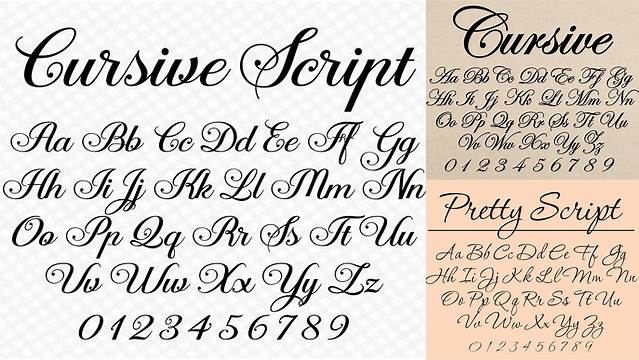
Handwriting Cursive Fonts: A Stylish Guide
Hey there, design enthusiasts! Ever found yourself captivated by the elegance of handwritten fonts, the way they dance across the page with a unique flair? Well, you're in the right place. This guide is your deep dive into the world of fonts: handwriting cursive. We'll explore everything from what makes these fonts so special to how you can use them to spice up your projects. Get ready to unlock the secrets of stylish script and make your designs pop!
What Exactly Are Fonts: Handwriting Cursive?
So, what's the deal with handwriting cursive fonts, anyway? Simply put, they're digital typefaces designed to mimic the look of actual handwriting. Unlike the clean, structured appearance of your typical Arial or Times New Roman, these fonts aim for a more organic, human feel. They often feature connected letters, flowing strokes, and a variety of styles that reflect the diverse ways people write. Think of them as the digital versions of your favorite pens and pencils, ready to add a personal touch to your work.
Handwriting cursive fonts come in a bunch of different styles. Some try to perfectly imitate the style of the pen, while others have a more modern look. There are super-fancy ones that remind you of invitations, and others that feel more relaxed and casual, like something you'd scribble in a notebook. Because of the variations, there is a perfect fit for any project that you might have.
Handwriting fonts are really popular because they can make things feel more personal and human. They're a great choice for adding a bit of personality and warmth to anything you create, whether it's a website, a poster, a social media post, or even your email signature. They give off the feeling of a personal message. This type of font can make your design stand out from the crowd. They can also be a good option to communicate with the audience because the tone of the font is friendly. You can change the perception of your message with the right font. They also allow you to convey a message with emotion.
The Magic of Using Fonts: Handwriting Cursive
Why should you even bother with handwriting cursive fonts? The short answer: they bring a special kind of magic to your projects. They can instantly transform the vibe of your design, making it feel more personal, creative, and engaging. Let's dive into some of the key benefits and why they're a game-changer.
- Adds Personality and Emotion: Regular fonts can sometimes feel a little cold and impersonal. Handwriting cursive fonts, on the other hand, have a natural warmth and expressiveness that can connect with your audience on a deeper level. They add a touch of human touch, making your design more relatable and memorable.
- Creates Visual Interest: In a world of standard fonts, handwriting cursive fonts instantly grab attention. Their unique shapes and flowing lines offer a visual break, making your design more interesting and visually appealing.
- Perfect for Branding: If you want to create a brand that feels friendly, approachable, or artistic, these fonts are a fantastic choice. They can help you establish a unique brand identity, setting you apart from the competition.
- Versatile Applications: From invitations and greeting cards to logos, website headers, social media graphics, and even packaging design, handwriting cursive fonts can be used in a wide range of applications. The possibilities are endless!
Using these fonts can greatly improve the quality of your design. This is the best option if you want to make your message more personal. It is also a good option if you want to make your content look more attractive and unique. They are useful if you want to make your design stand out. Using the appropriate font can set the tone for your design. You can create designs that can connect with the audience.
Finding the Perfect Fonts: Handwriting Cursive
Alright, ready to get your hands on some awesome handwriting cursive fonts? Here are some tips and resources to help you find the perfect ones for your projects:
- Font Websites: There are tons of websites that offer free and paid fonts. Some popular options include Google Fonts, DaFont, Font Squirrel, and Creative Market. Each site has a wide selection, so you're sure to find something that suits your needs.
- Font Pairing: Don't just stick to one font! Try pairing your handwriting cursive font with a clean, easy-to-read font for body text. This creates a balanced look that is both stylish and readable. Experiment with different combinations to find what works best for your project.
- Consider the Style: Think about the overall feel you want to create. Do you want something elegant and sophisticated or fun and playful? Choose a font that matches your brand's personality and the message you want to convey.
- Check Licensing: Always check the licensing terms before using a font. Some fonts are free for personal use but require a license for commercial projects. Make sure you understand the terms to avoid any legal issues.
There are many ways to search for the right font. Make sure that the font fits the needs of the project. Different websites can provide the option for different fonts, there are many free options that can be helpful. If you are using the font for commercial purposes, you need to make sure you have the license to use the font. When you are choosing a font, consider its style and how it fits the theme of your work.
So, there you have it! Your guide to the wonderful world of handwriting cursive fonts. These fonts are a fantastic way to add personality, creativity, and a touch of human warmth to your designs. With the right font, you can create a unique design. You will also connect with your audience in a deeper way.
So go out there, experiment, and have fun! Your designs will thank you for it. Start exploring the many possibilities of handwriting cursive fonts and see how they can elevate your creative projects to a whole new level. Happy designing!